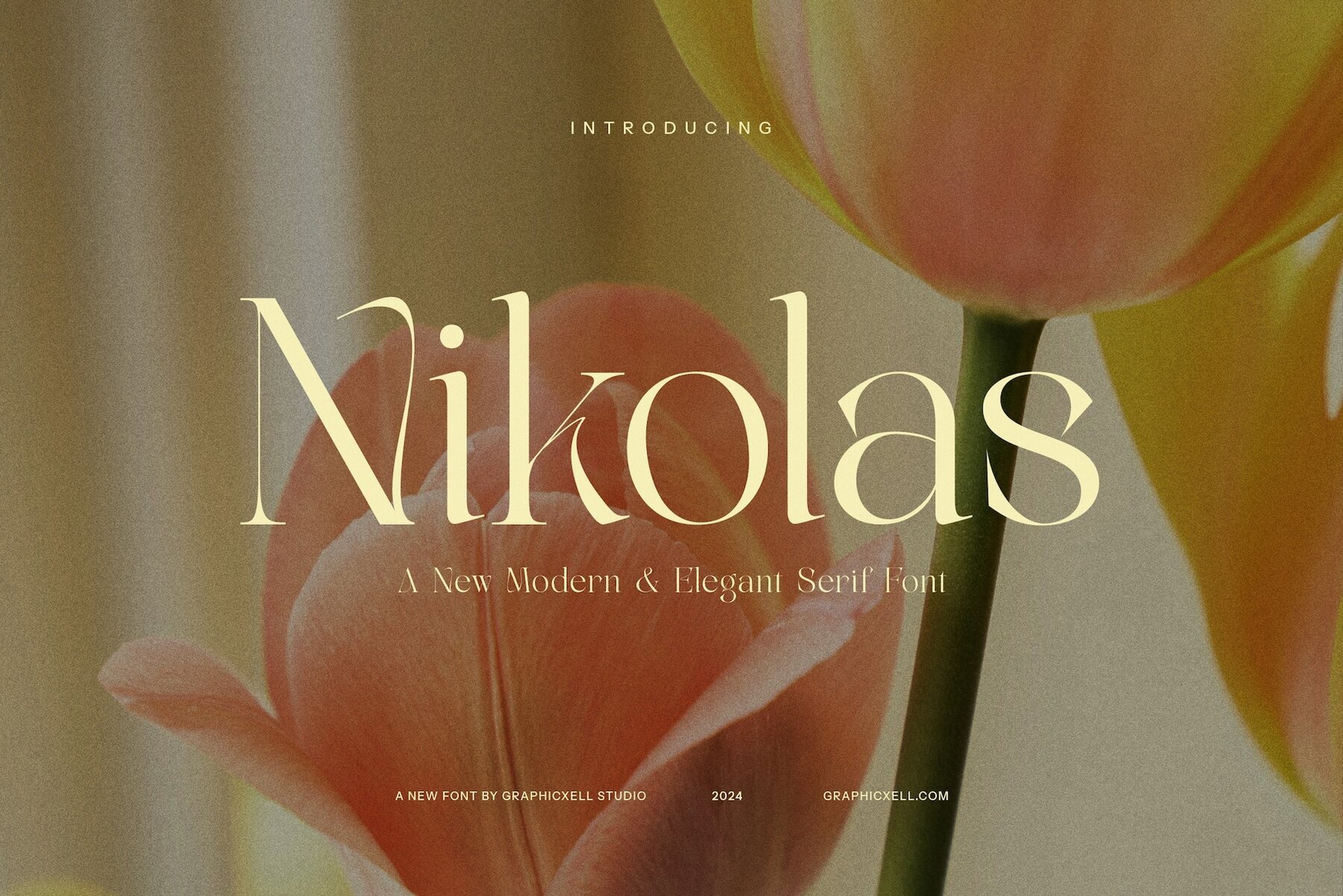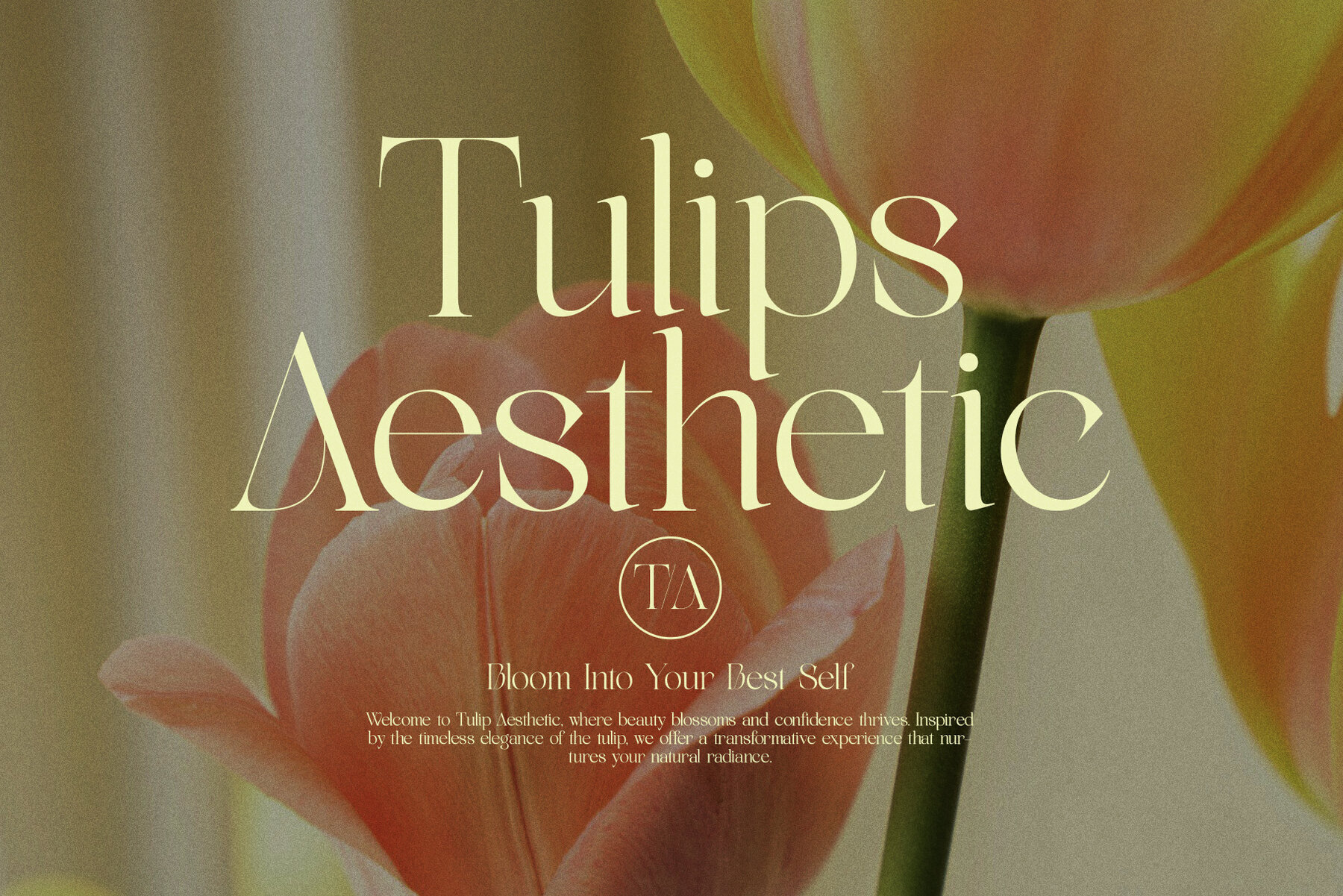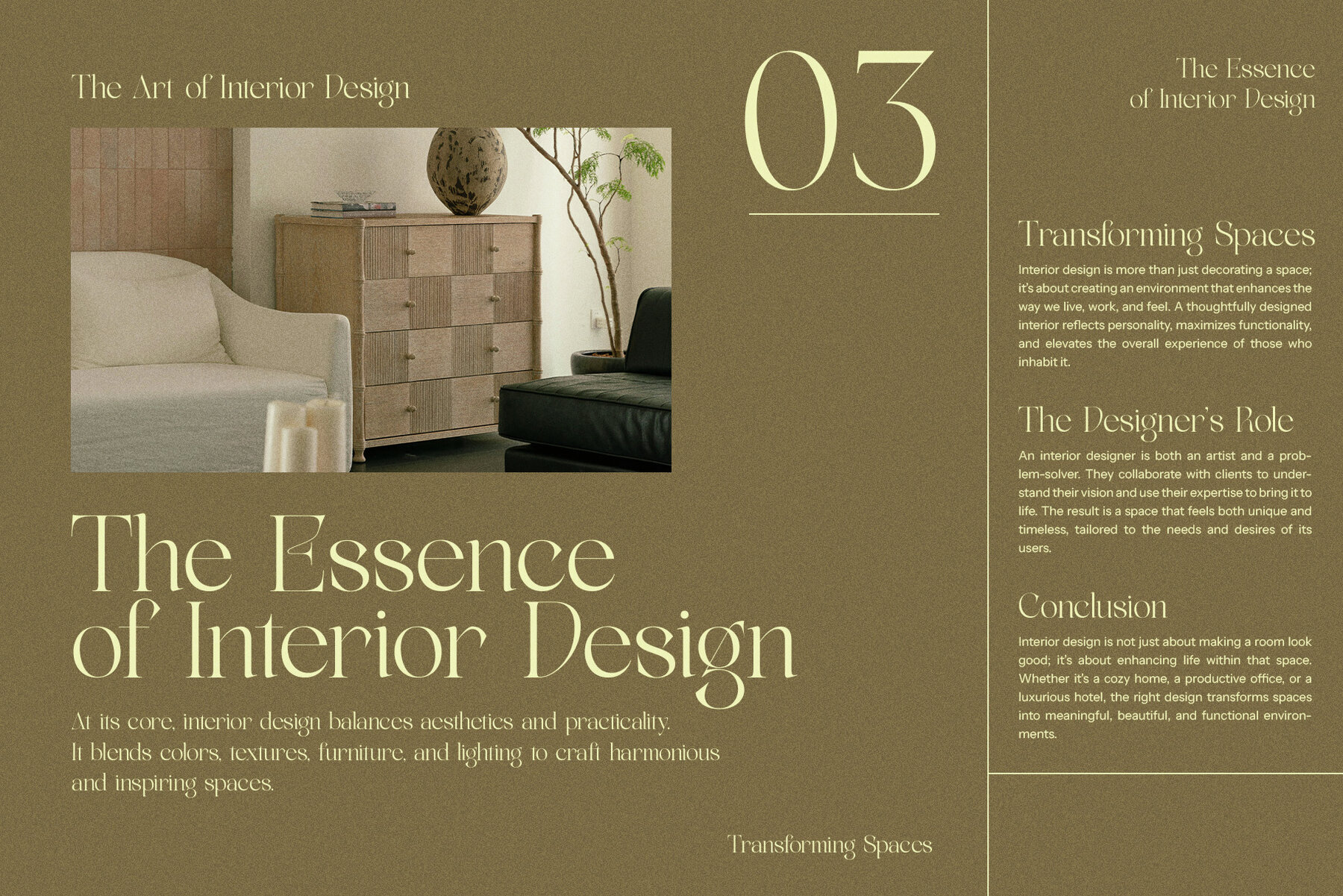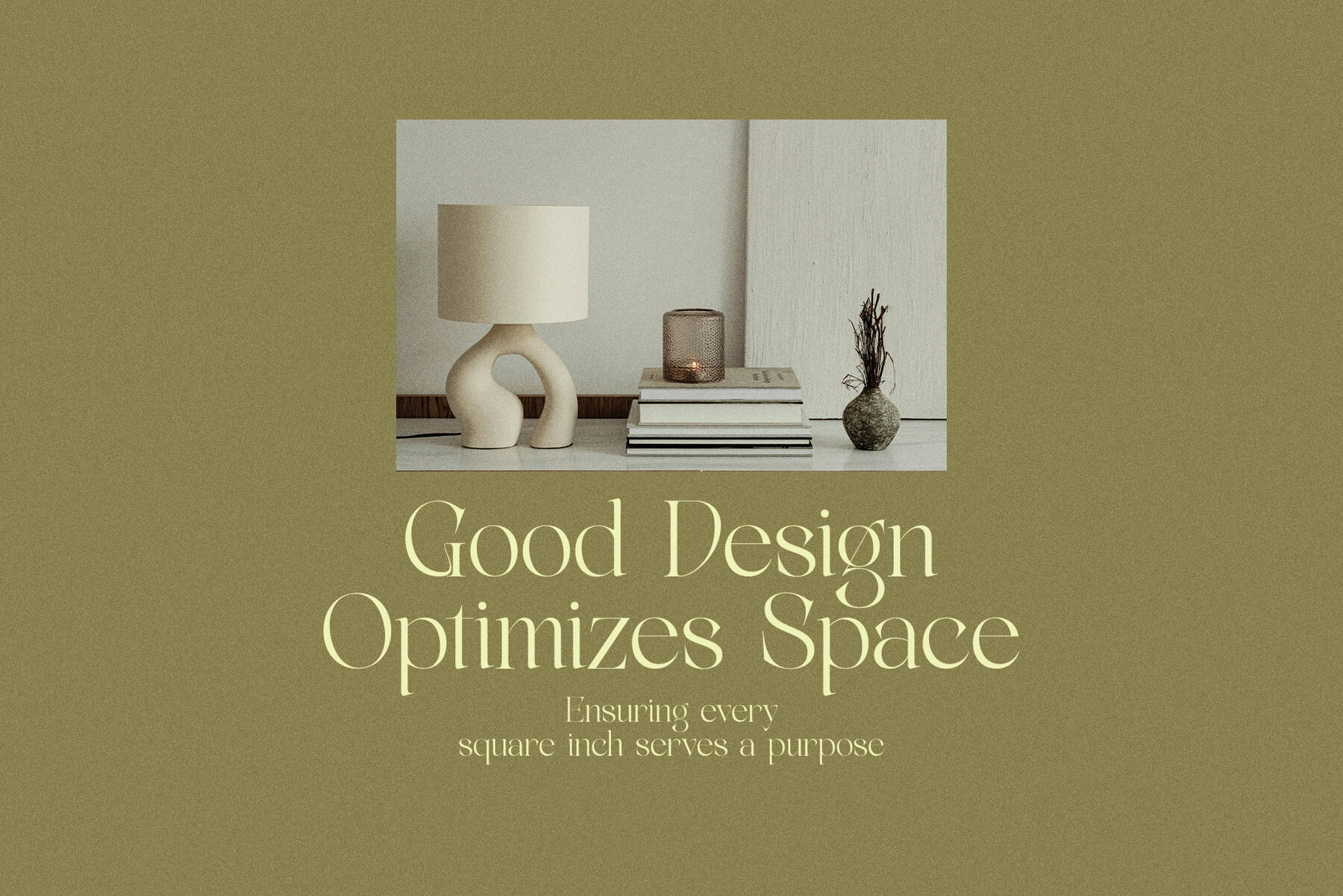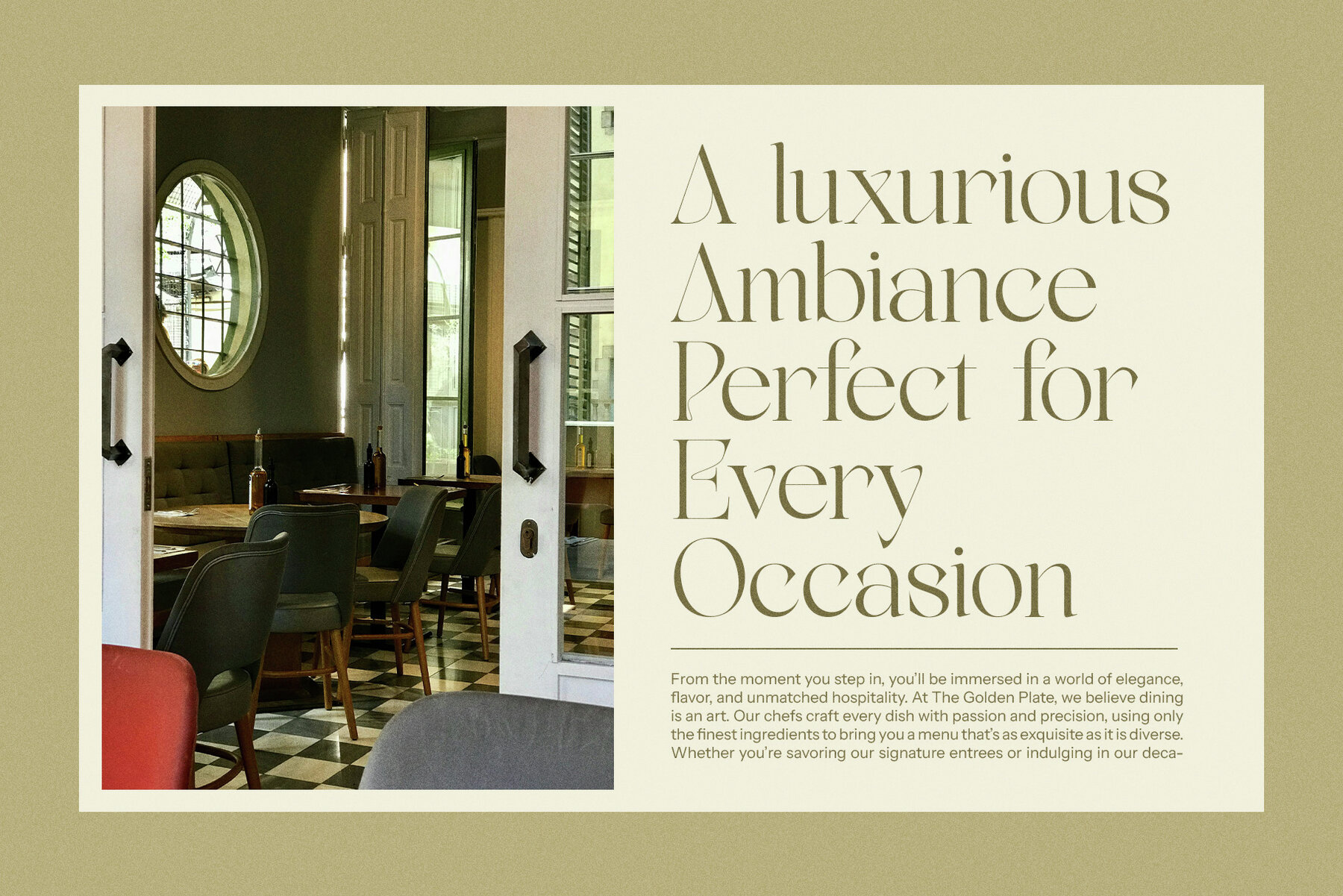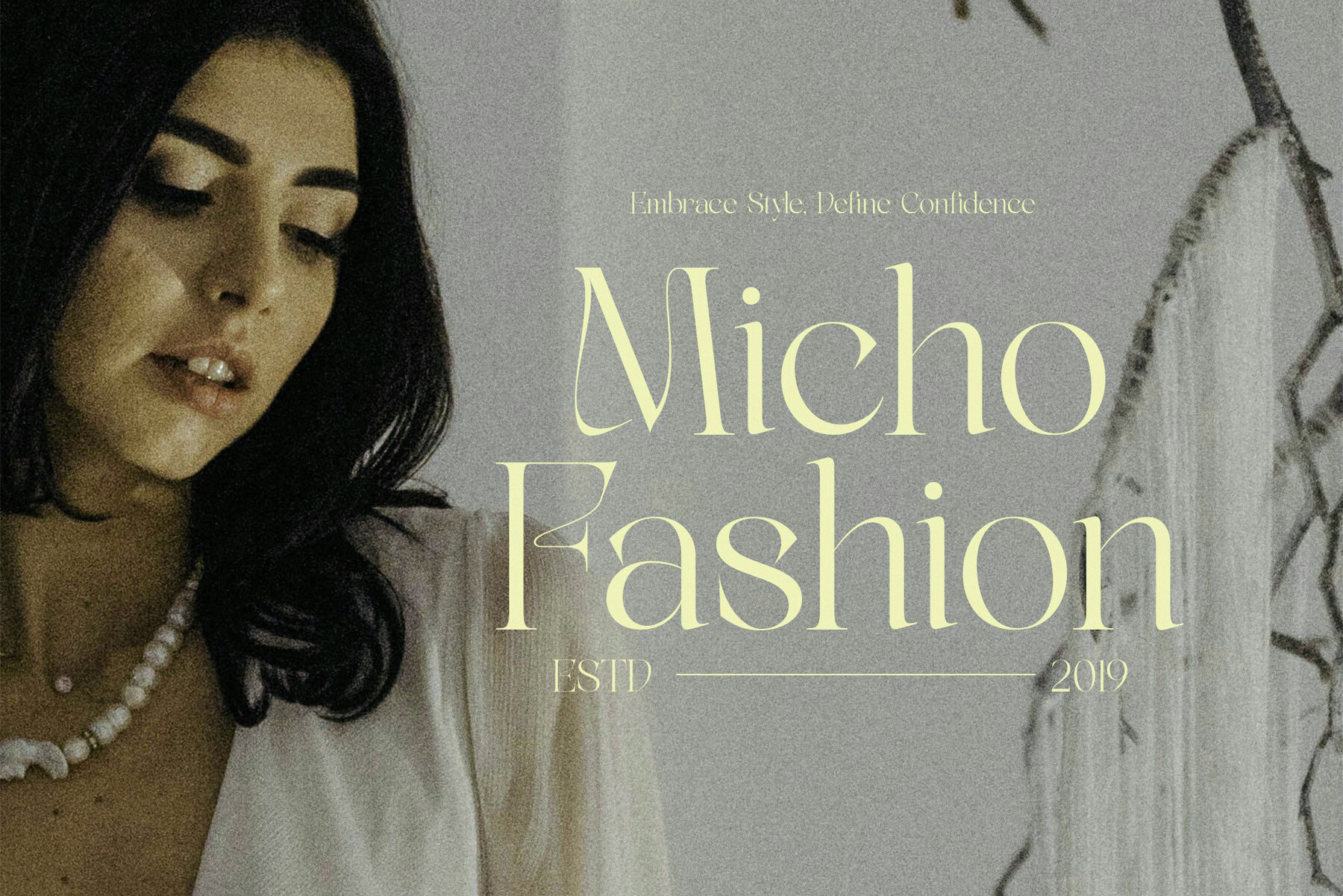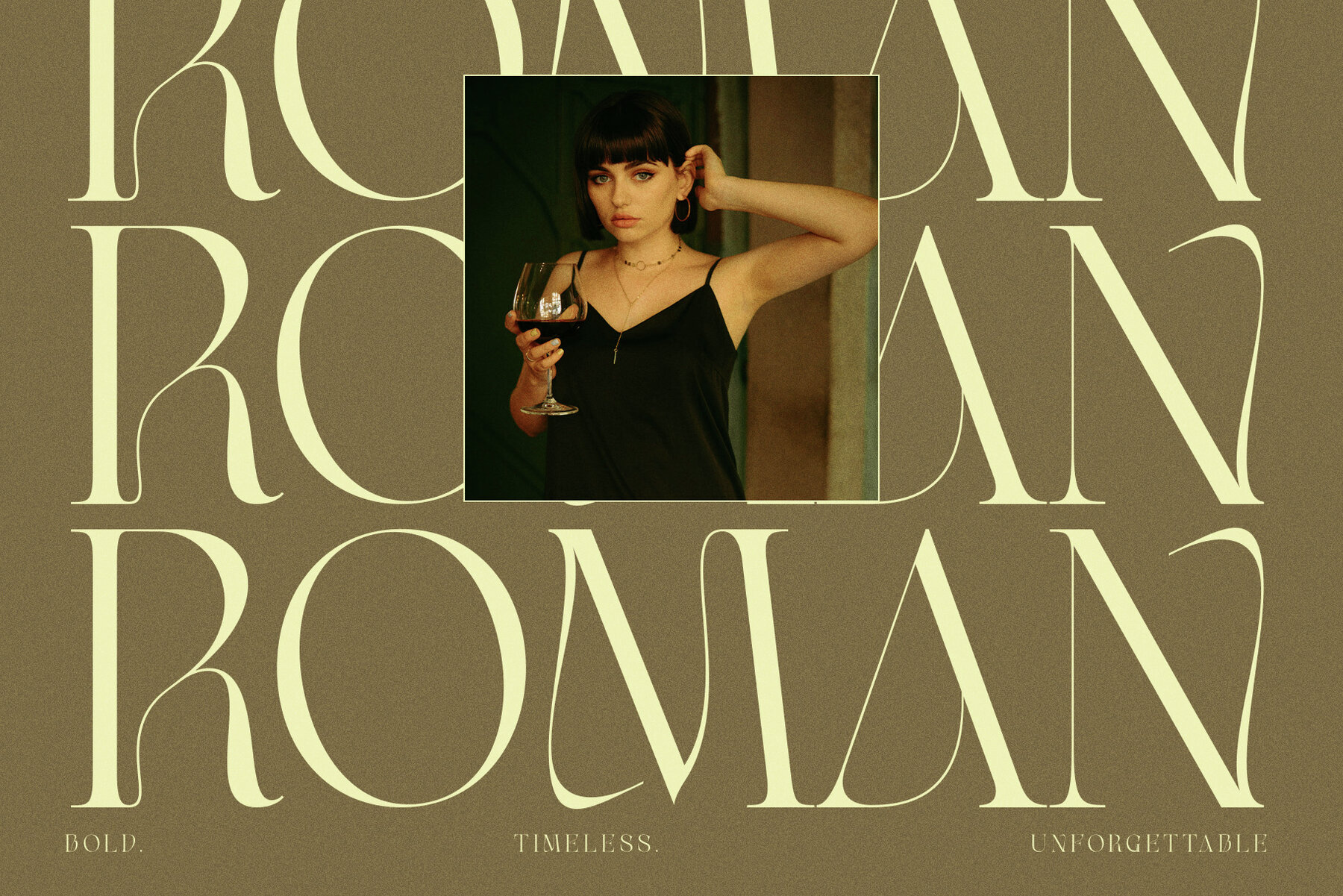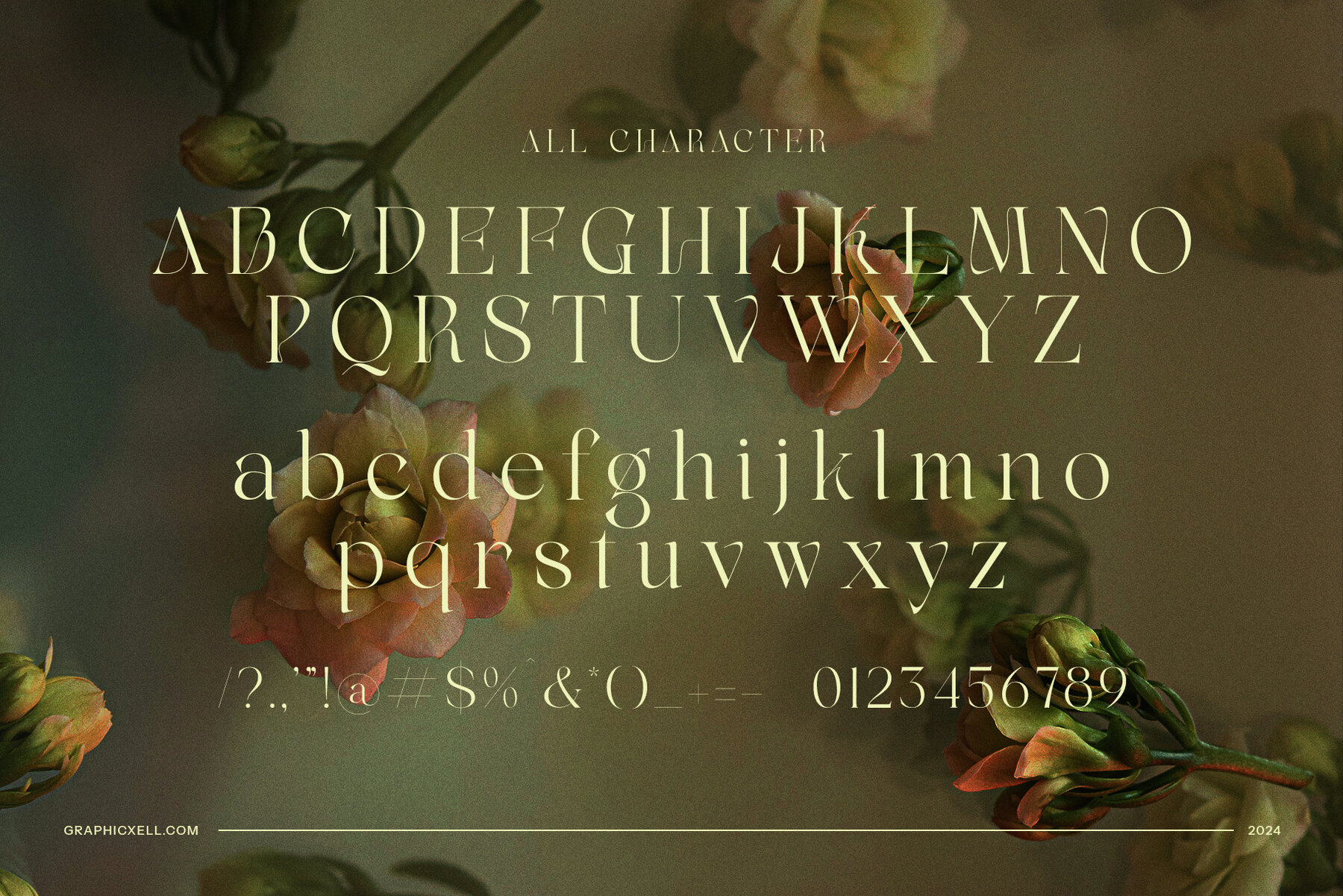
Nikolas Font
Nikolas
Nikolas Modern Serif Font is a sophisticated typeface designed to infuse elegance and modernity into your projects. Featuring sleek serifs and stylish curves, this font combines timeless tradition with contemporary flair. Its unique and balanced structure ensures readability while maintaining a chic, high-end aesthetic, ideal for luxury branding, high-quality print materials, and digital platforms.
This versatile font suits a wide range of applications, from logos and websites to magazine layouts. Its elegant lines make it perfect for upscale boutiques, fine dining establishments, trendy fashion brands, and professional advertisements. Nikolas Modern Serif seamlessly balances contemporary style and classic appeal, standing out as a trusted choice for designers.
Apart from being a beautiful display font, Nikolas Modern Serif is also well-suited for body text due to its excellent legibility across various sizes. Its timeless style adds authority and grace to a variety of designs, whether in corporate branding or editorial work. Nikolas Modern Serif is a versatile tool for any creative professional, offering sophistication and charm that leaves a lasting impression.